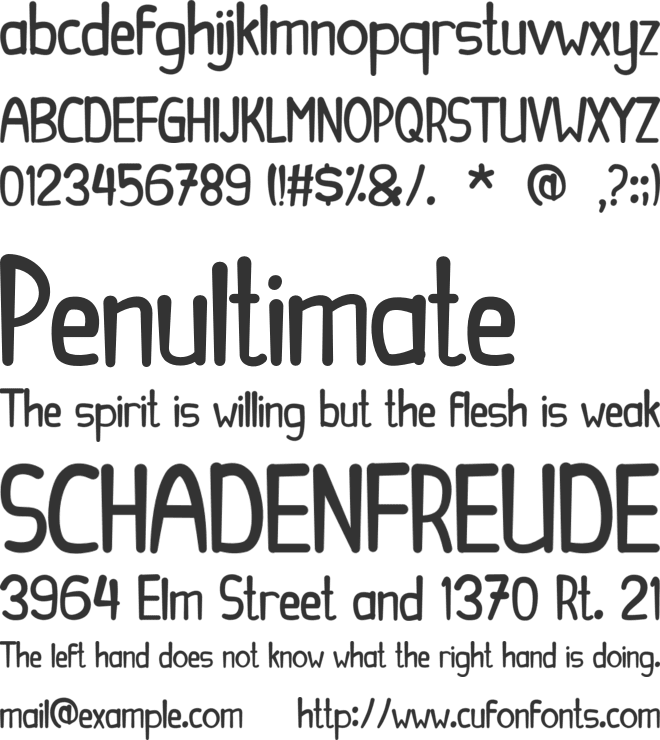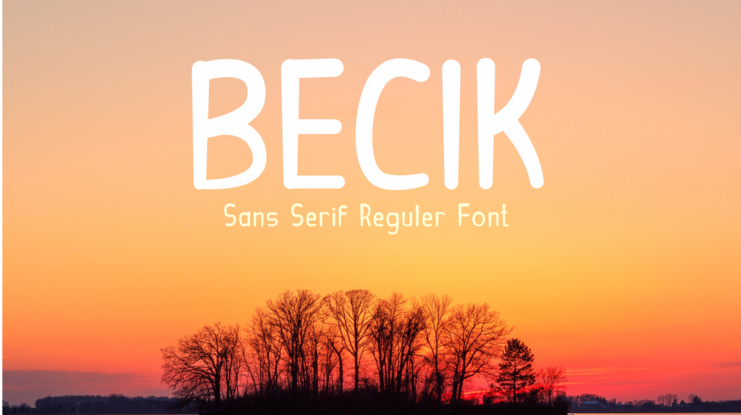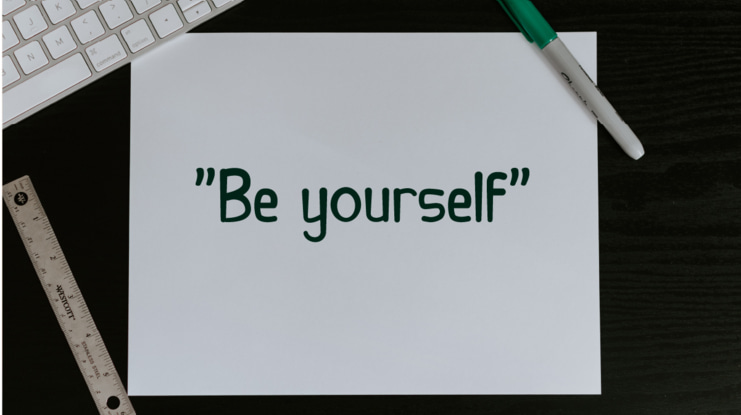
Becik Font
Becik is designed in an enjoy handwritten sans serif font style. Let’s try it to your projects, such as back to school, wedding, party decoration, invitations, posters, blogs, social media posts or anything that needs a relax touch. Add it now to your fonts library, and it will bring any of your DIY projects to life.